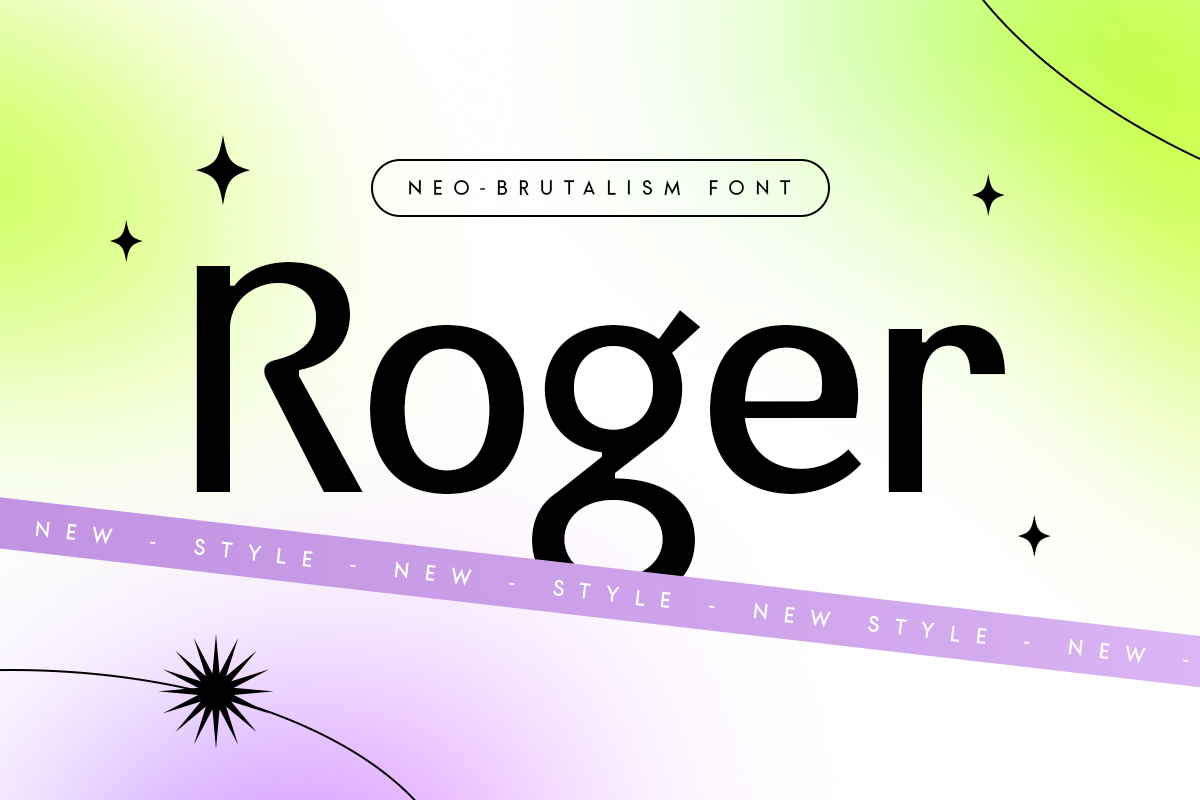
Roger - Neo Brutalism Font
Make a bold statement with Roger, the neo-brutalism font that combines modern corporate style with minimalist design principles. This unique sans serif typeface delivers high legibility while maintaining an iconic, stylish appearance. Roger's minimalist aesthetic makes it perfect for creating distinctive variations and shapes in seconds, giving your projects a contemporary edge that stands out. Ideal applications include branding projects, logo design, poster creation, social media posts, advert...